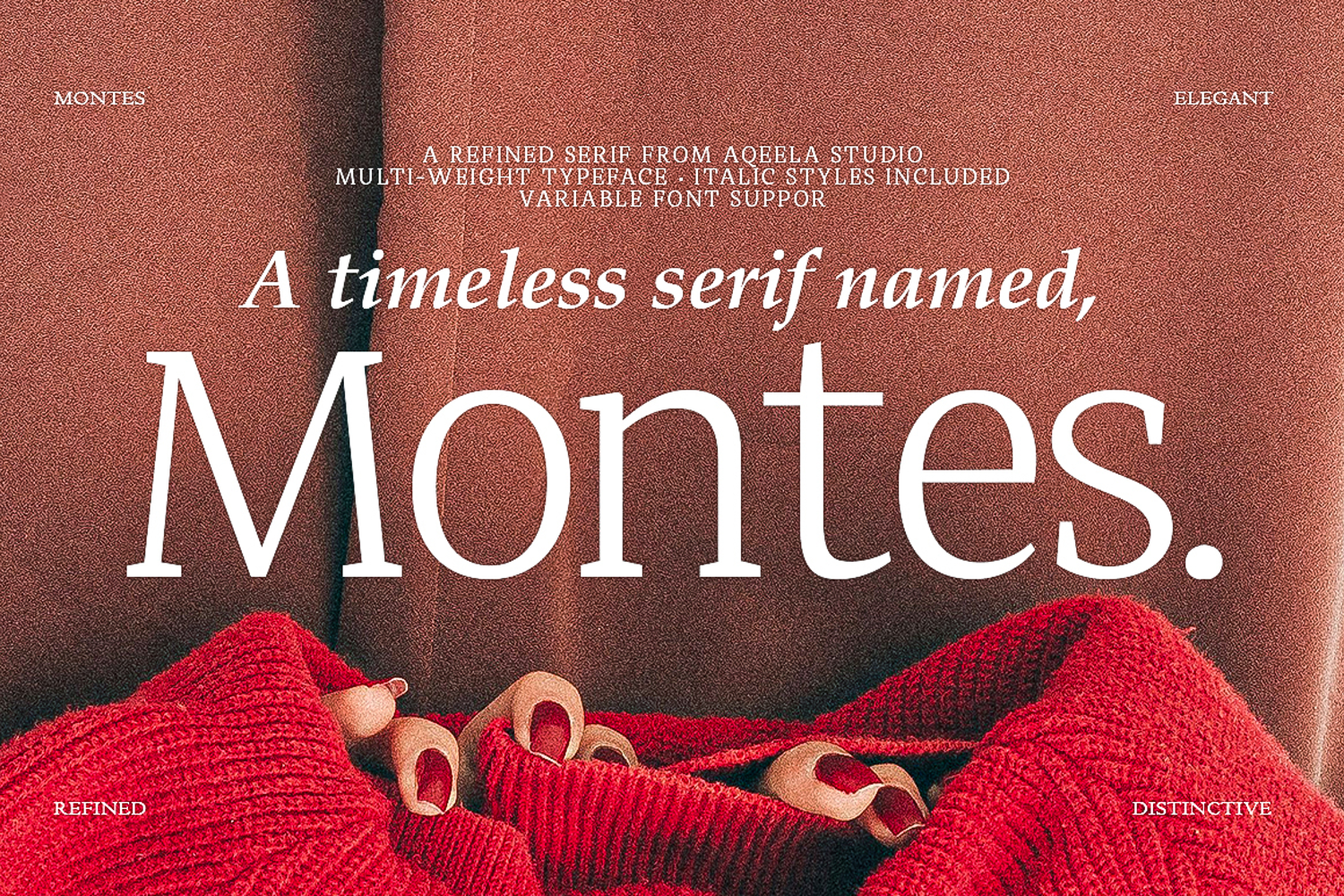
Created By Aqeela Studio
Montes
Montes is a refined, timeless serif typeface created by Aqeela Studio that effortlessly balances elegance with a distinctive, high-end editorial feel. As a multi-weight font featuring variable support and included italic styles, it offers exceptional versatility for modern branding, luxury packaging, and editorial layouts. The clean line structure combined with classic serif details gives it a sophisticated yet contemporary character, making it an excellent choice for projects that require a premium and stylish visual identity.